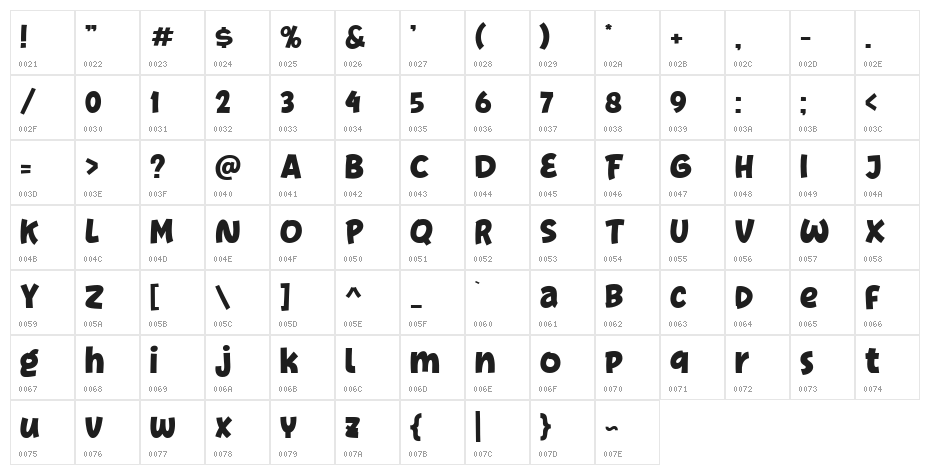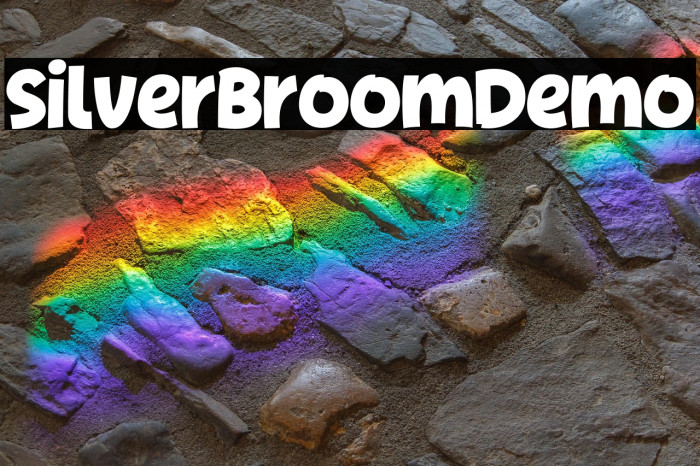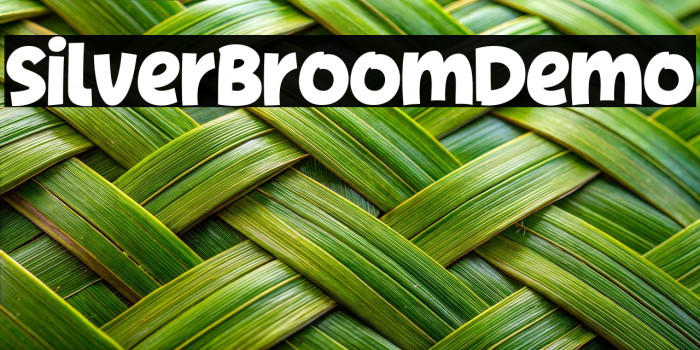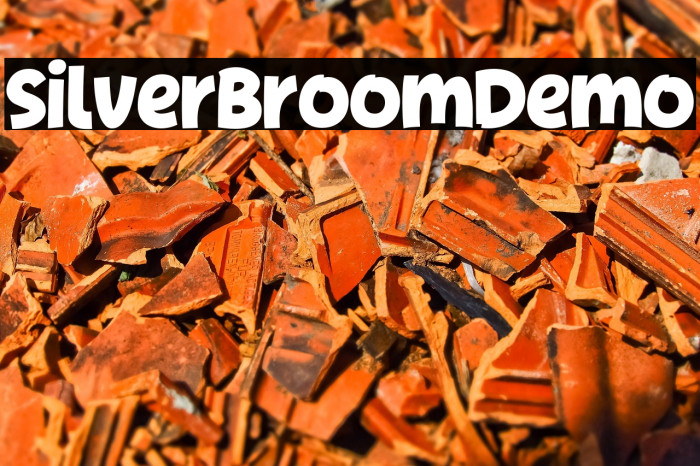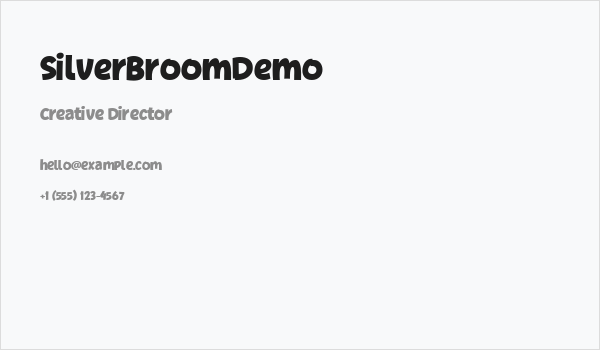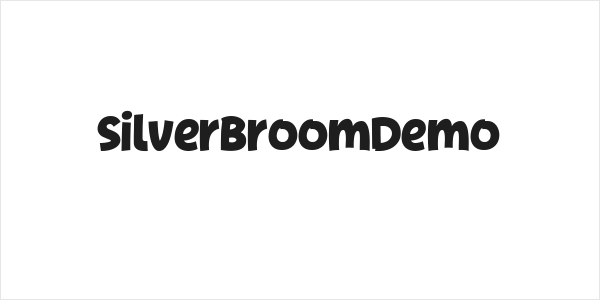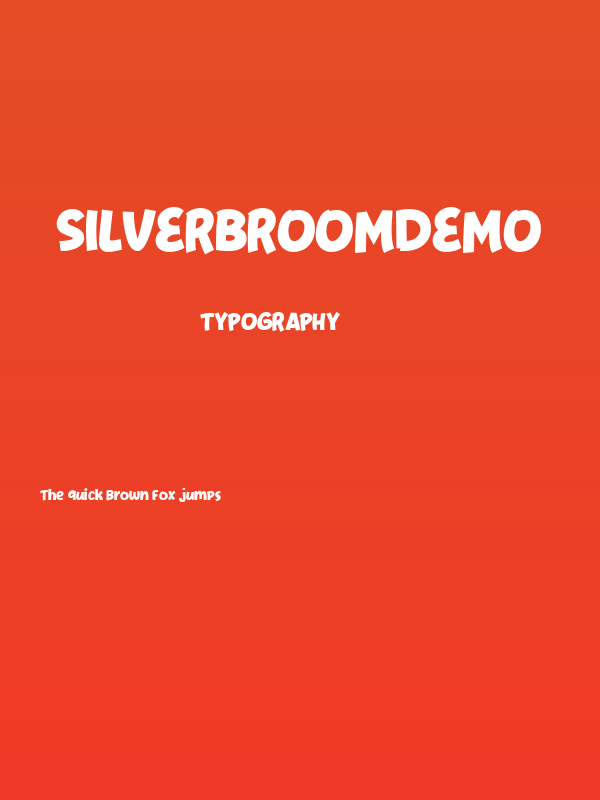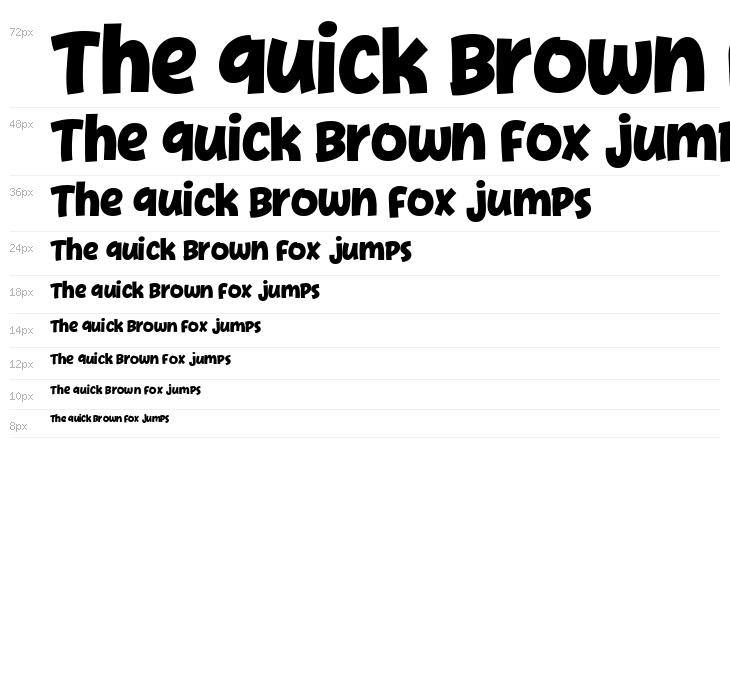
SilverBroomDemo Font
SilverBroomDemo Description
This font features a playful and bold style with a strong presence. The characters are rounded and slightly irregular, giving them a whimsical and friendly appearance. The uppercase and lowercase letters maintain a consistent weight, contributing to a cohesive look. The numbers and special characters follow the same playful design, making them suitable for creative and informal projects. The overall style is reminiscent of hand-drawn or cartoon lettering, which adds a unique charm and personality.
| Proposed Projects | Ideal for children's books, comic strips, playful branding, and creative posters. |